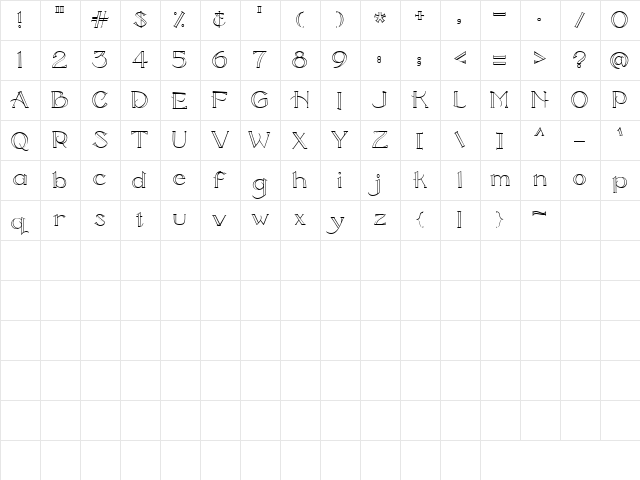
CK Timeless Regular Font Preview
CK Timeless Regular
CK Timeless Regular Font Details
Design Context for CK Timeless Typeface
CK Timeless takes a measured approach to typography — its balanced proportions and neutral character make it a reliable workhorse for both digital and print work.